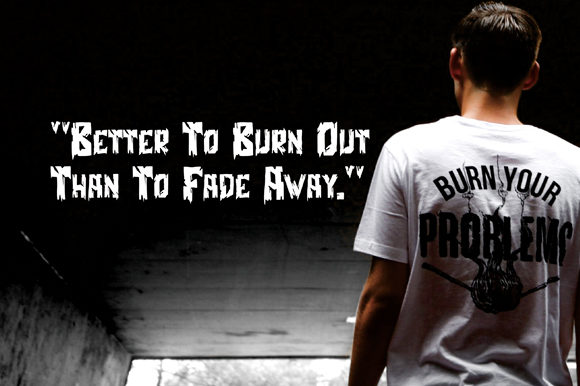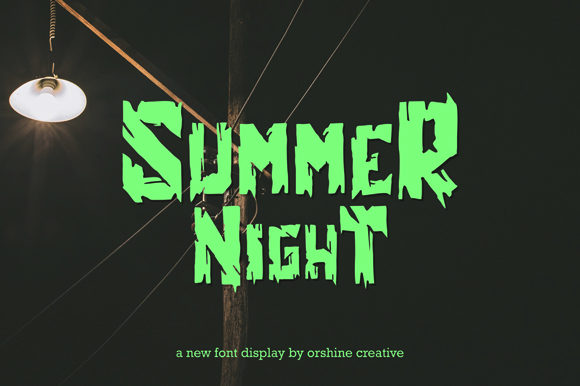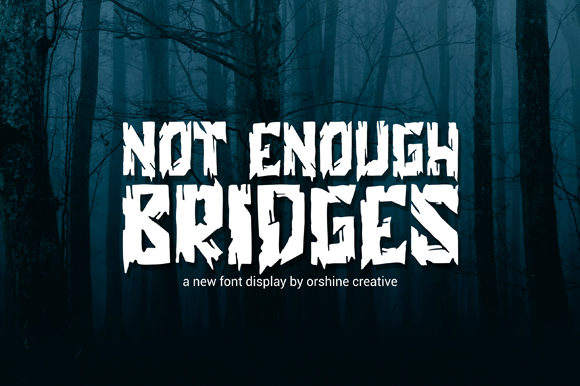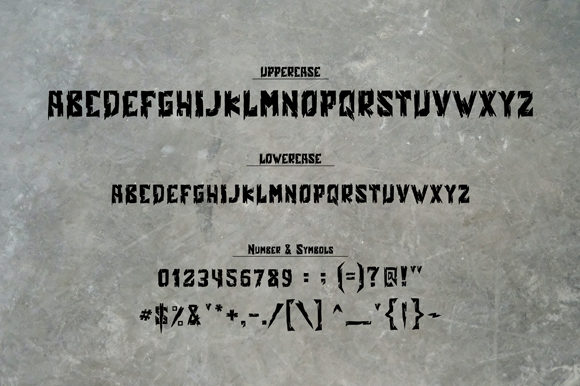
Introduction to Rockburn Font
Rockburn is a fantastic and strong display font.
It’s perfect for movie’s posters, book covers, comic posters, games, magazines and much more .
Rockburn Font offers exceptional quality and versatility, making it a valuable addition to your design toolkit. Whether you’re creating for personal projects or commercial use, Rockburn Font delivers professional results.